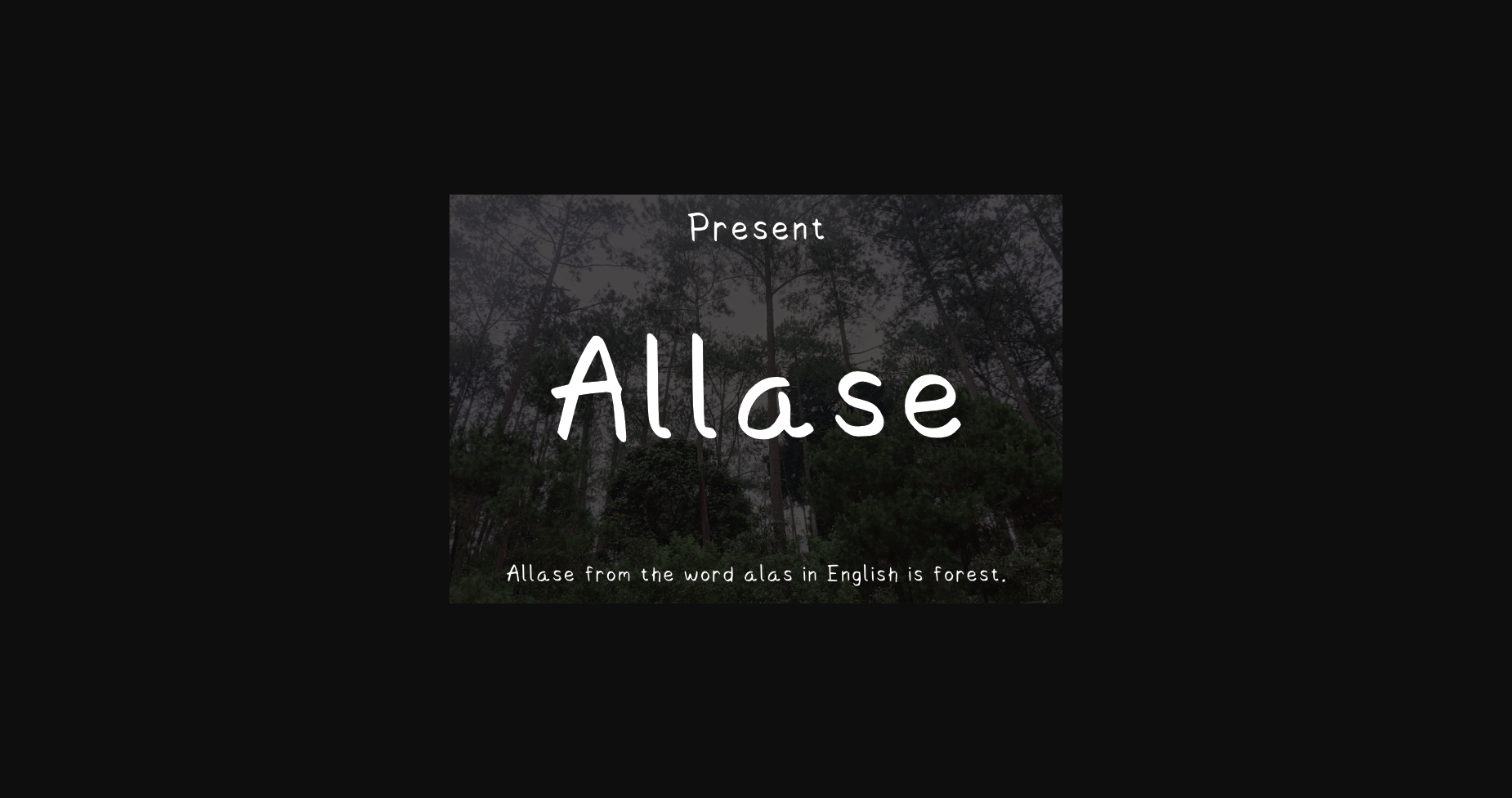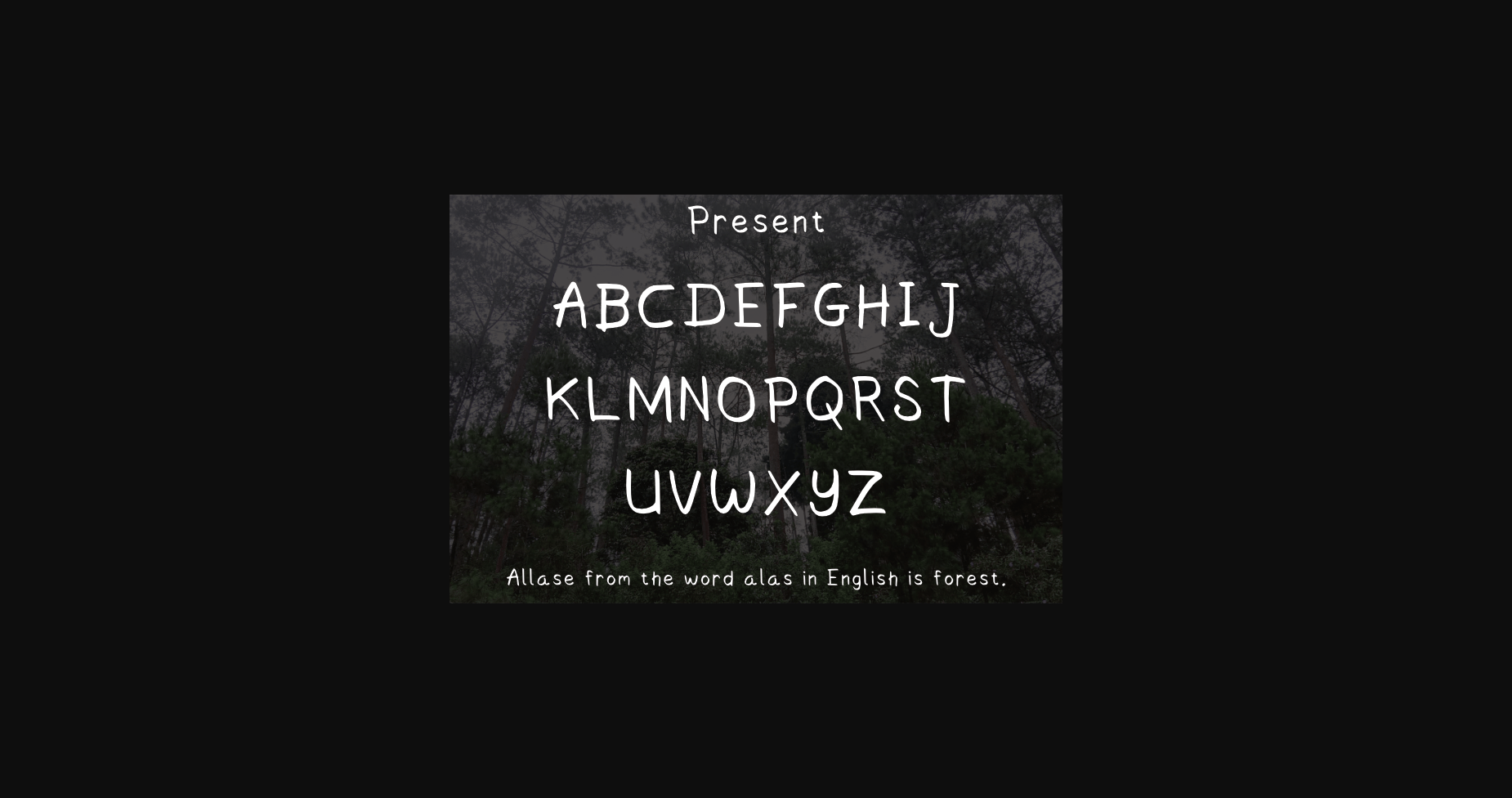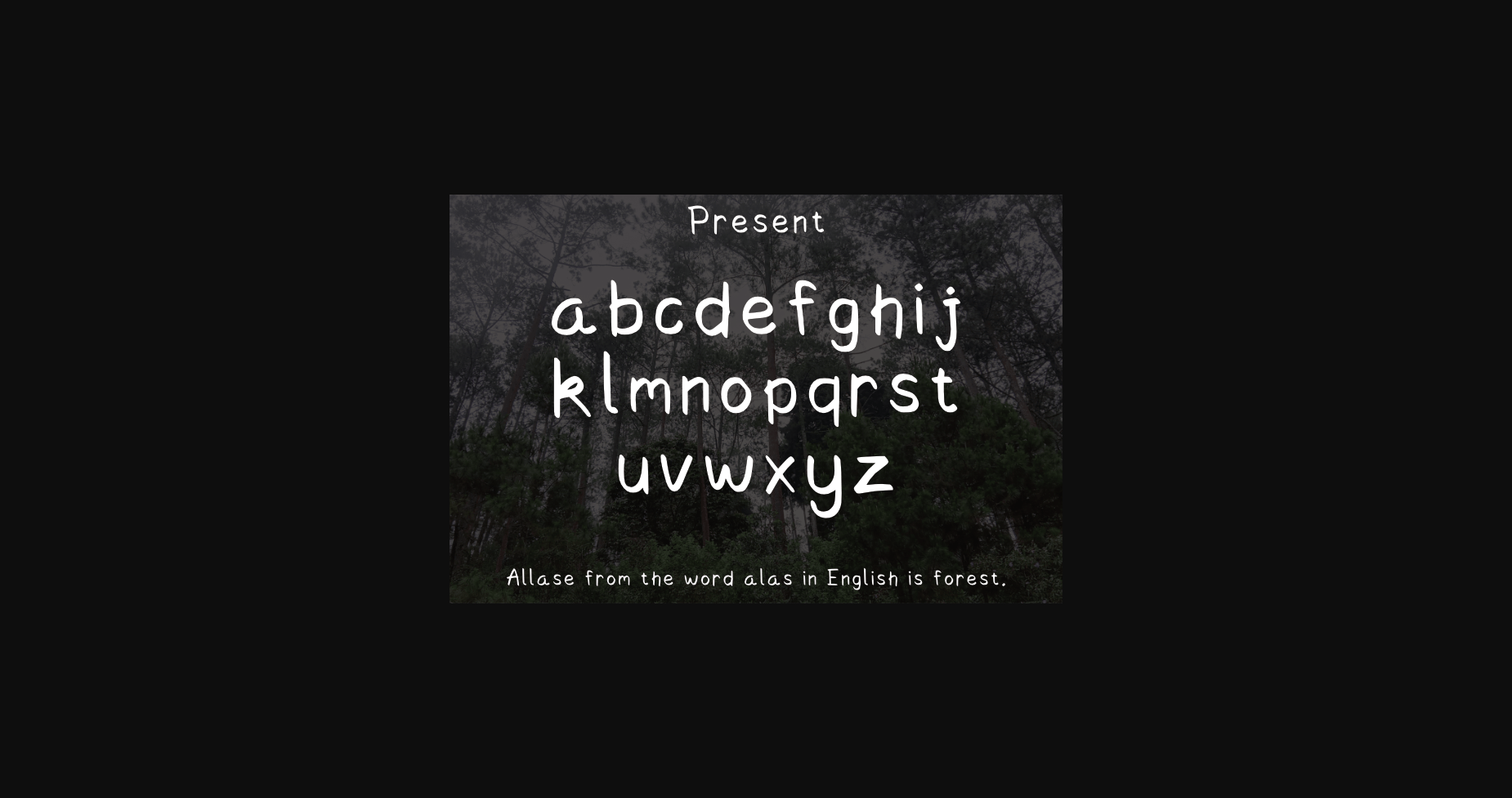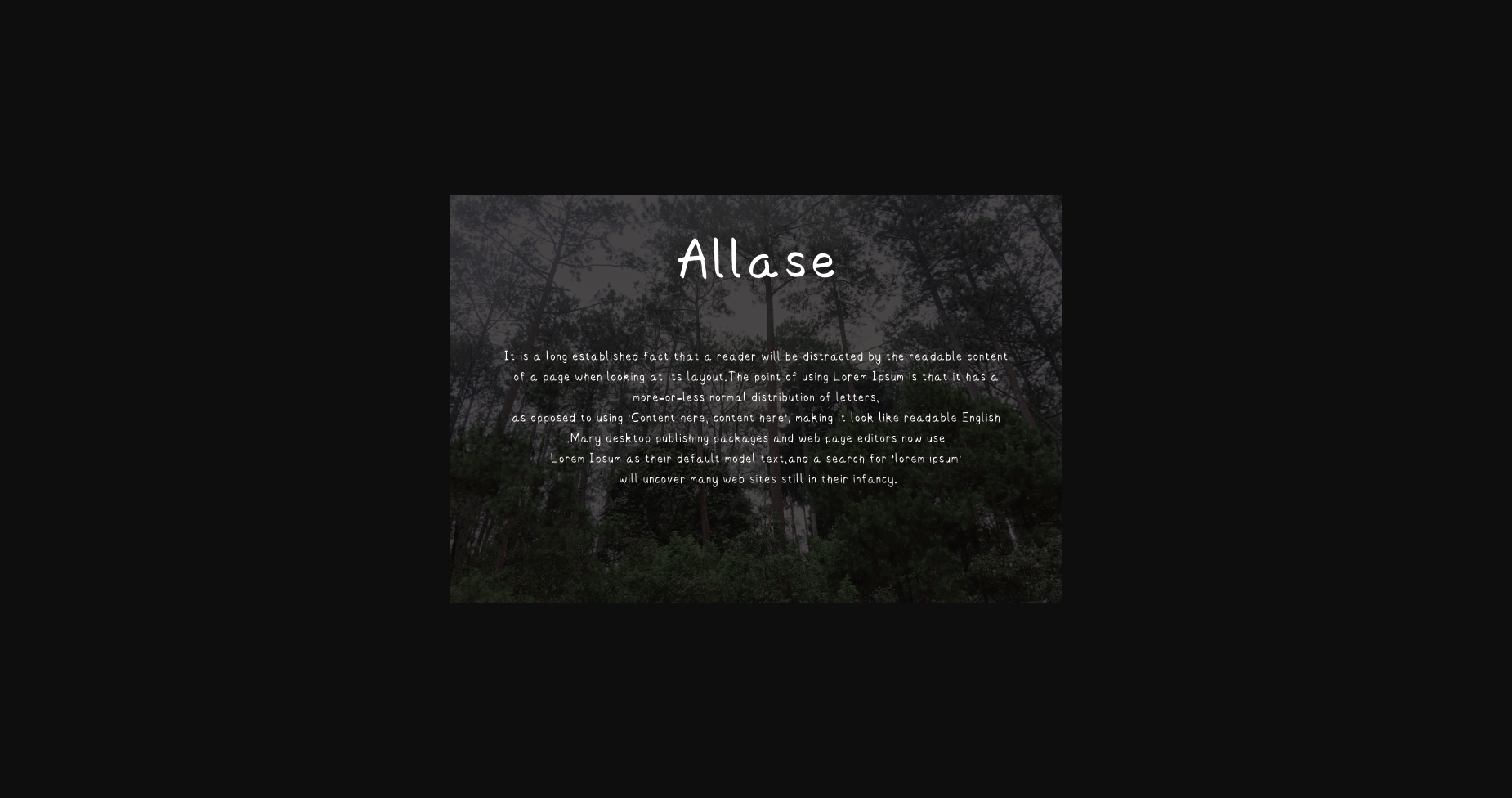
About Allase Font
Allase is a sans serif typeface that has a unique style & modern look.
This typeface is perfect for elegant & luxurious logos, book or movie title designs, fashion brands, magazines, clothing, fonts, quotes and more.